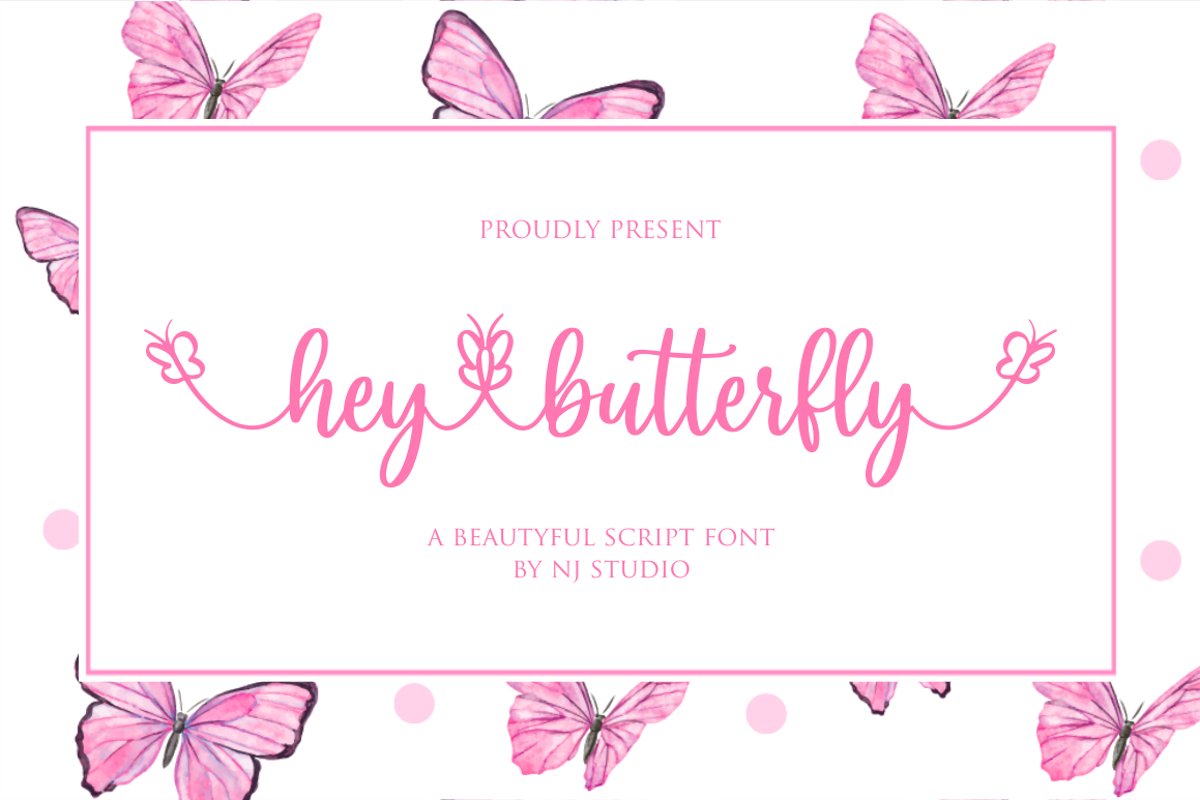
hey butterfly
hey butterfly a beautyful Script Fonts are font designs that are made for various vector designs, printing such as digital wedding invitations, blogs, online shops, social media, while printing can be used in the field of product clothing, accessories, bags, pins, logos, business cards, watermarks and many others ...
hey butterfly is equipped with complete alternates and very beautiful ligature, so it can make your product look elegant and attractive,
and also Multilingual support!!!